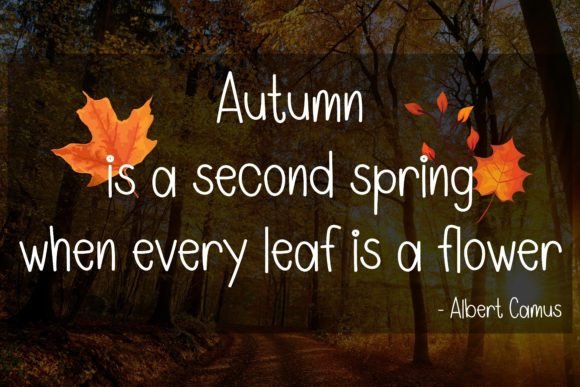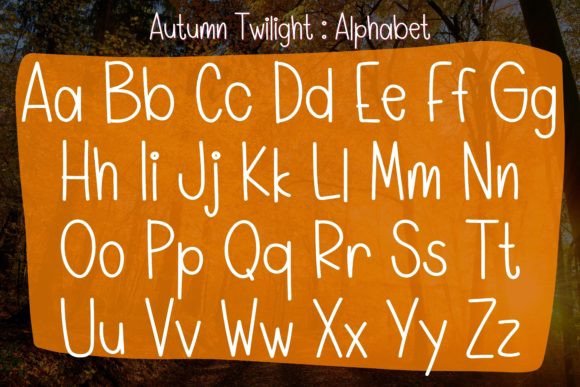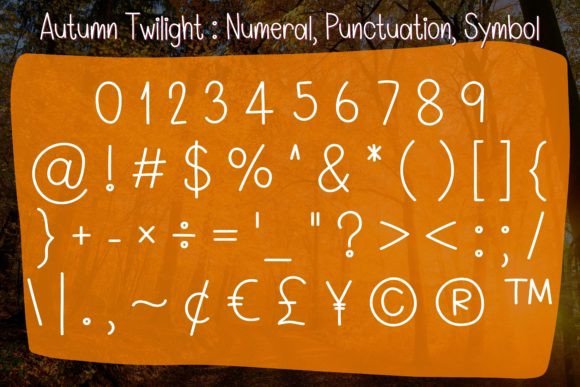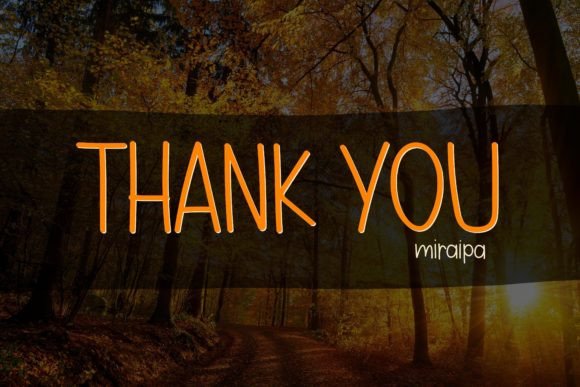
Introducing Autumn Twilight Font: Add a Friendly Touch to Your DIY Projects
Are you a designer, crafter, or DIY enthusiast looking for a playful and friendly font to elevate your creative projects? Look no further than Autumn Twilight Font, a beautiful handwritten font designed to bring a lovely touch to your designs. In this article, we’ll explore the features and benefits of Autumn Twilight Font, and how it can be used to make your projects stand out.
What is Autumn Twilight Font?
Autumn Twilight Font is a playful handwritten font created in a friendly and lovely style. Its unique and charming design makes it perfect for a wide range of projects, from personal to commercial use. Whether you’re working on a diary, planner, journal, or any other creative project, Autumn Twilight Font is sure to add a touch of warmth and personality.
Perfect for Various Projects
Autumn Twilight Font is an incredibly versatile font that can be used for various projects, including:
- Diary, planner, and journal: Add a personal touch to your daily planner or journal with Autumn Twilight Font.
- Back-to-school projects: Create eye-catching posters, invitations, and decorations for the new school year.
- Party decorations and invitations: Make your party planning a breeze with Autumn Twilight Font’s playful and festive design.
- Festival decorations and posters: Celebrate your favorite festivals with a unique and colorful font.
- Blogs and social media posts: Stand out from the crowd with a friendly and approachable font.
- Clothing and child-related designs: Create adorable designs for kids’ clothing, toys, and accessories.
- Greeting cards and invitations: Send personalized and heartfelt messages with Autumn Twilight Font.
Why Choose Autumn Twilight Font?
So, why should you choose Autumn Twilight Font for your projects? Here are just a few reasons:
- Unique and playful design: Autumn Twilight Font has a one-of-a-kind design that’s sure to capture attention.
- Easy to read: The font is clear and legible, making it perfect for body text and headings.
- Versatile: Use Autumn Twilight Font for a wide range of projects, from digital to print.
- Friendly and approachable: The font’s friendly style makes it perfect for projects that require a personal touch.
- Experiment with colors: Autumn Twilight Font looks great in a variety of colors, so don’t be afraid to try out different hues.
- Mix and match fonts: Combine Autumn Twilight Font with other fonts for a unique and interesting design.
- Use it for headings and body text: Autumn Twilight Font is clear and legible, making it perfect for both headings and body text.
| Font Name | Autumn Twilight Font |
| Author | miraipa |